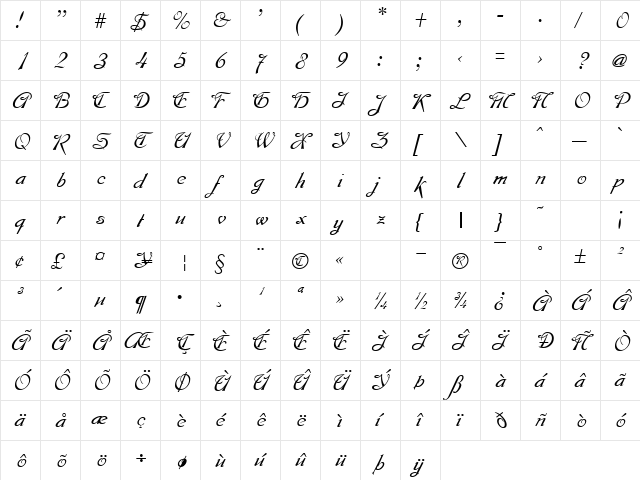
Montage Regular
Design Context for Montage Typeface
Montage is a composed and adaptable typeface that performs quietly and consistently across a wide range of design contexts.